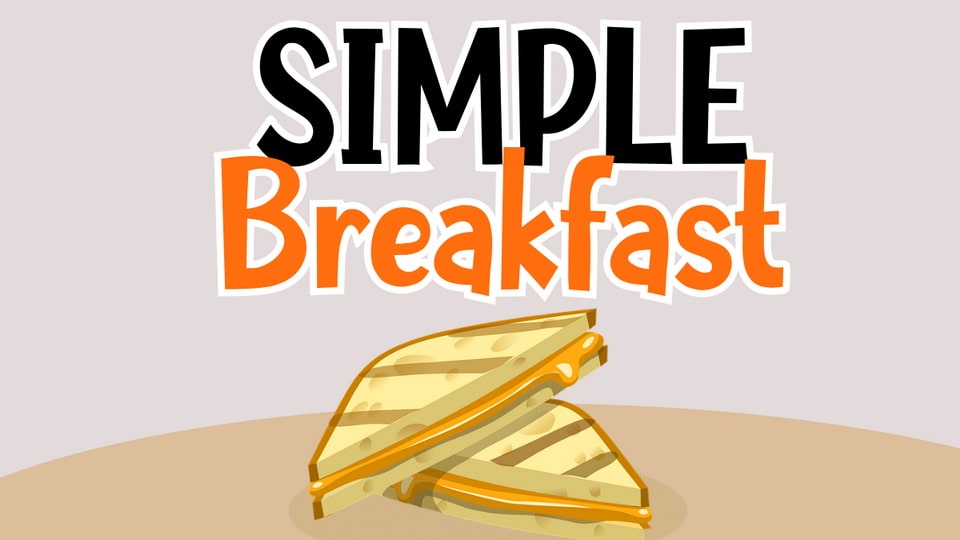
Download Simple Breakfast font, a fun and playful display typeface. Simple Breakfast font will perfectly fit into children’s projects or funny modern designs and logos.